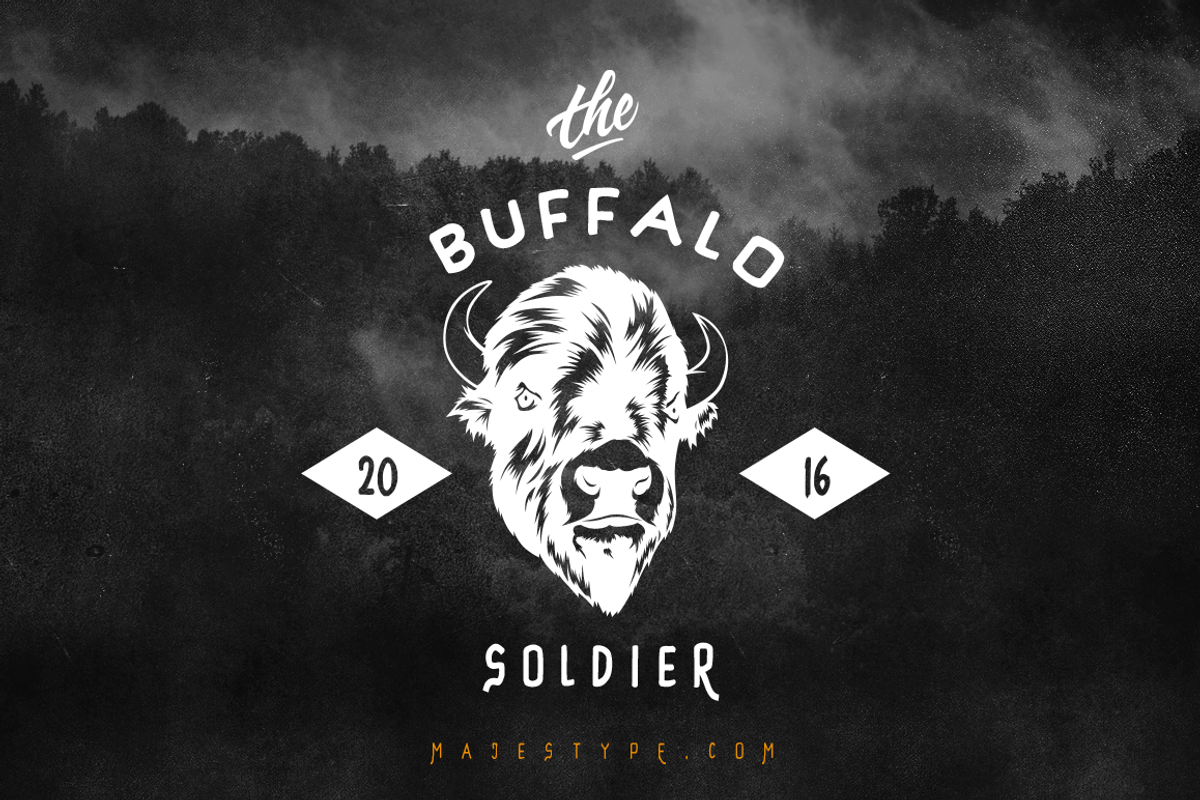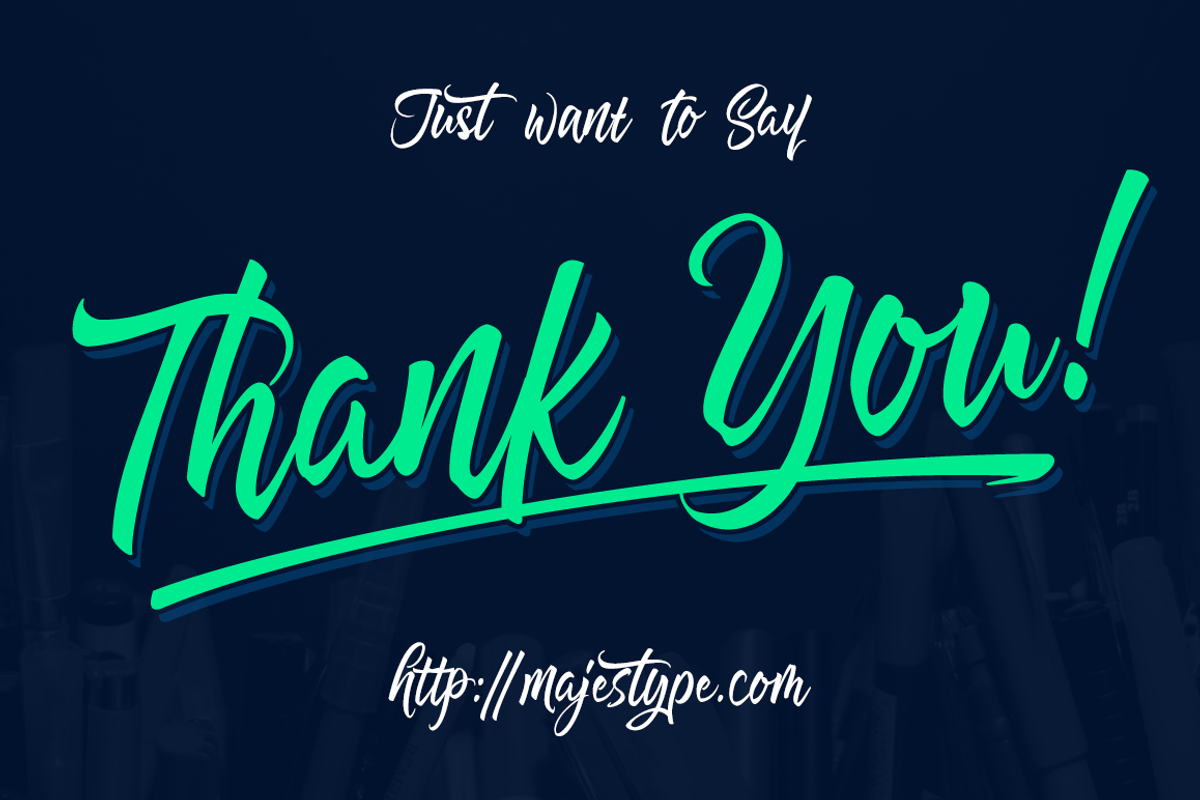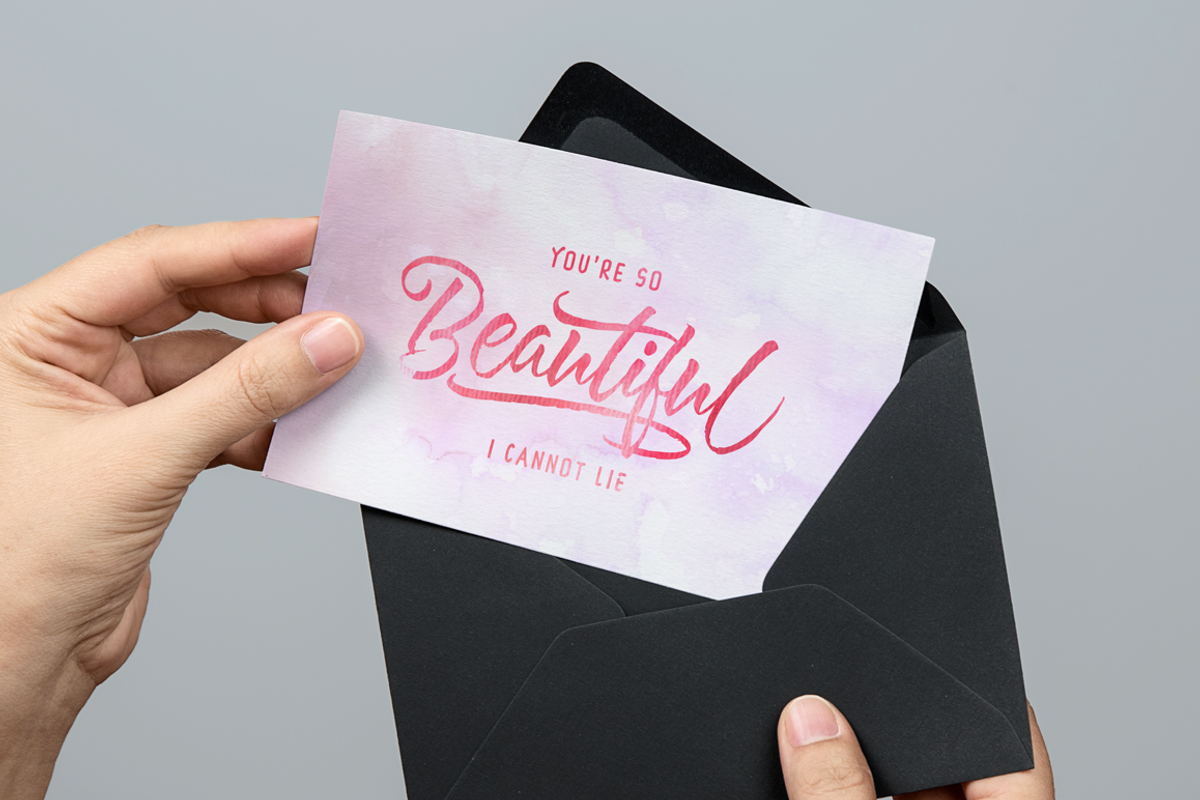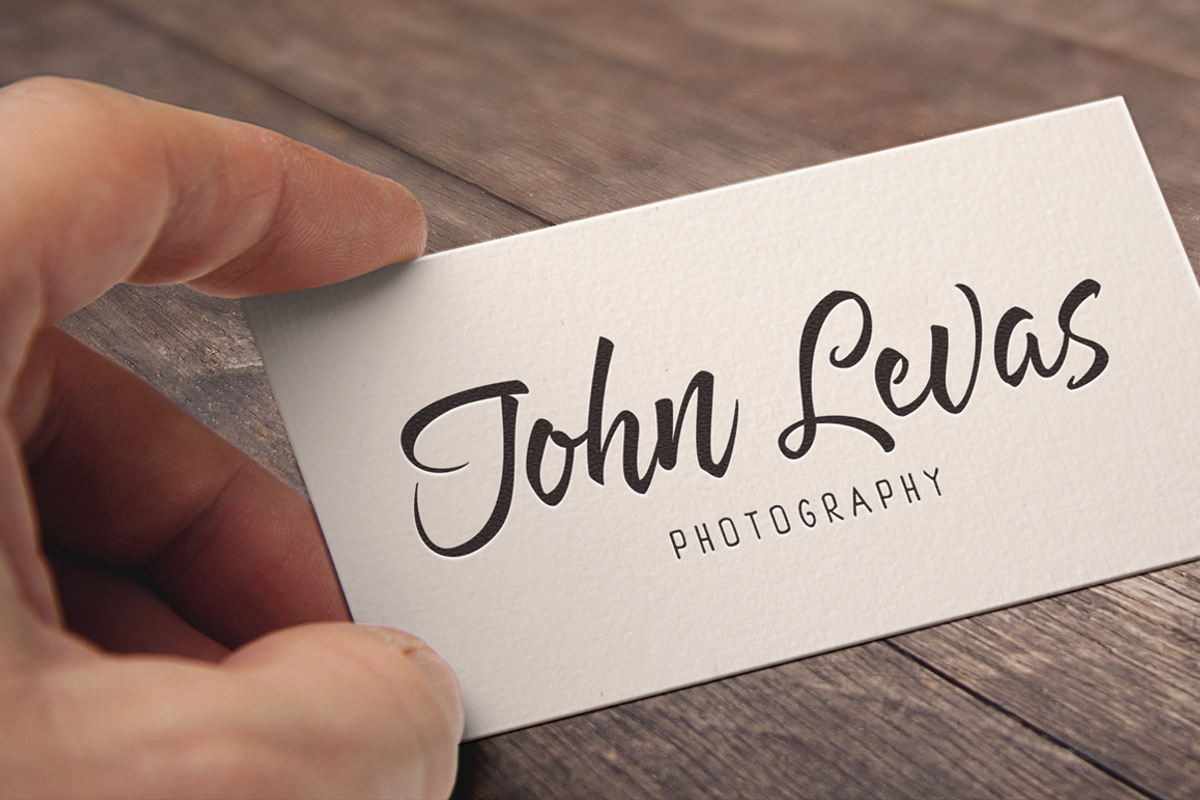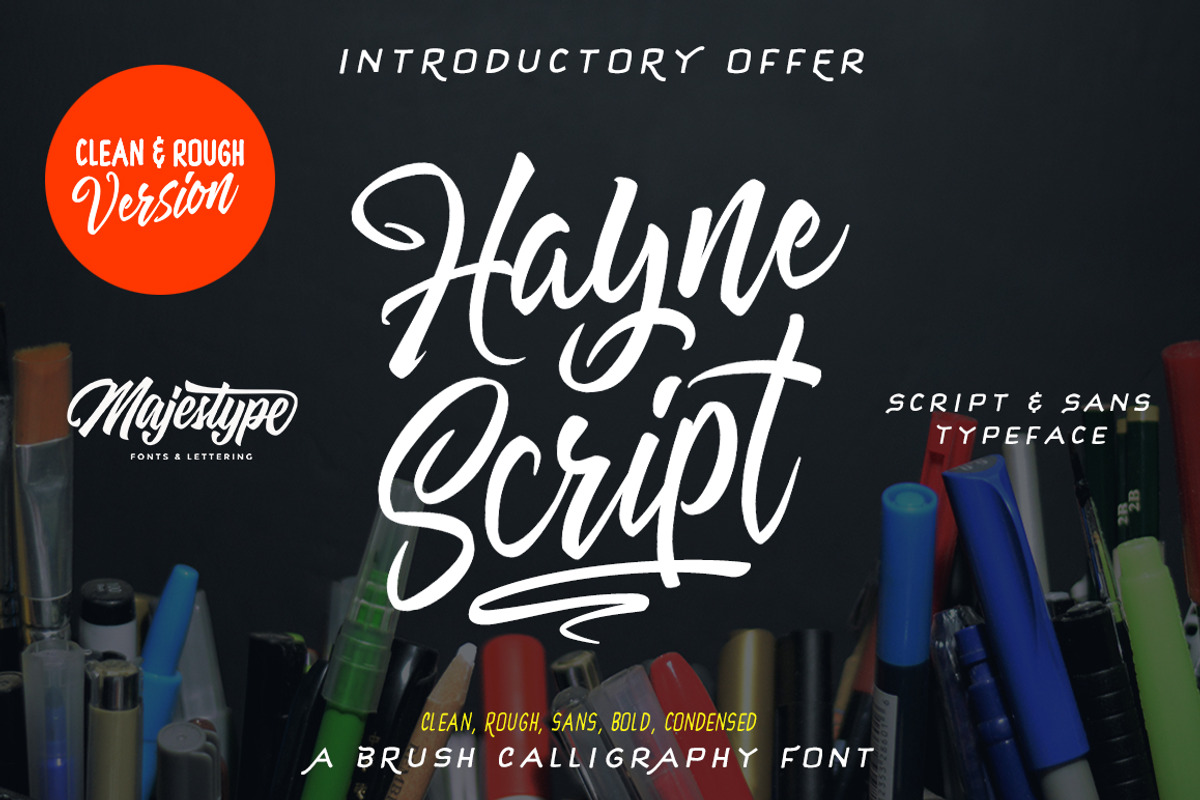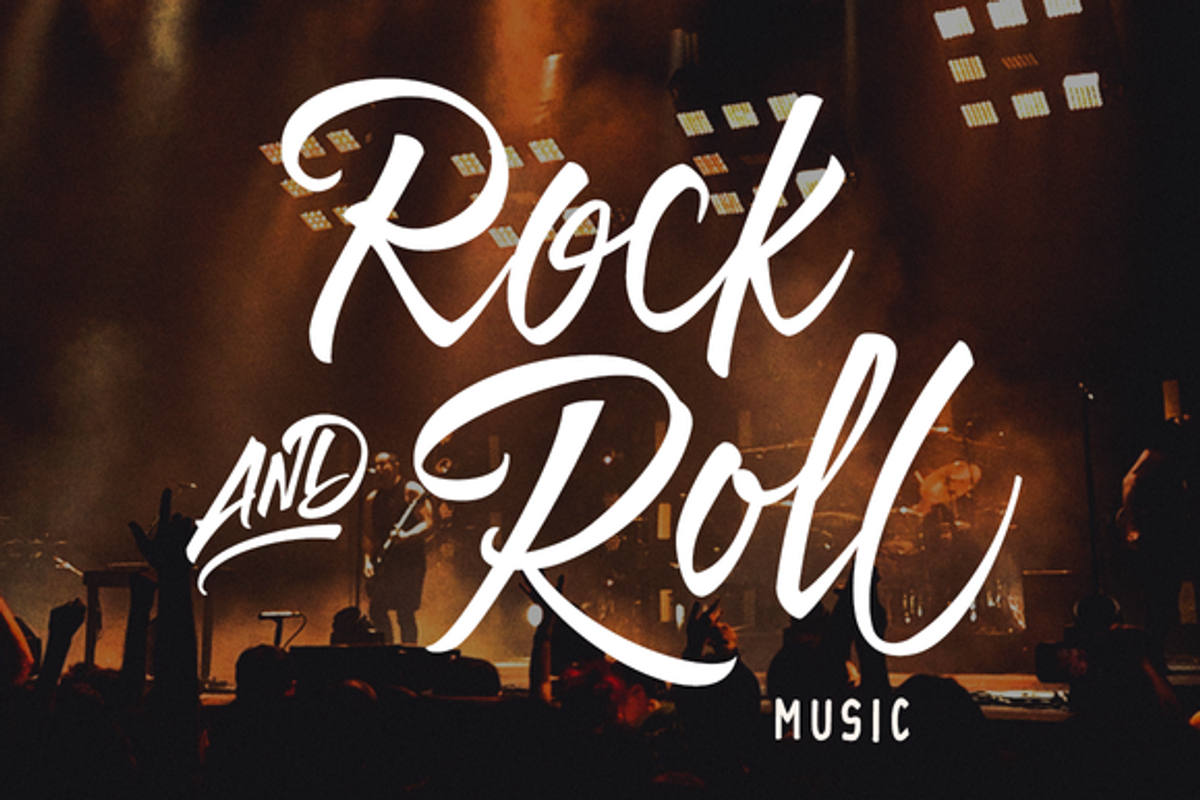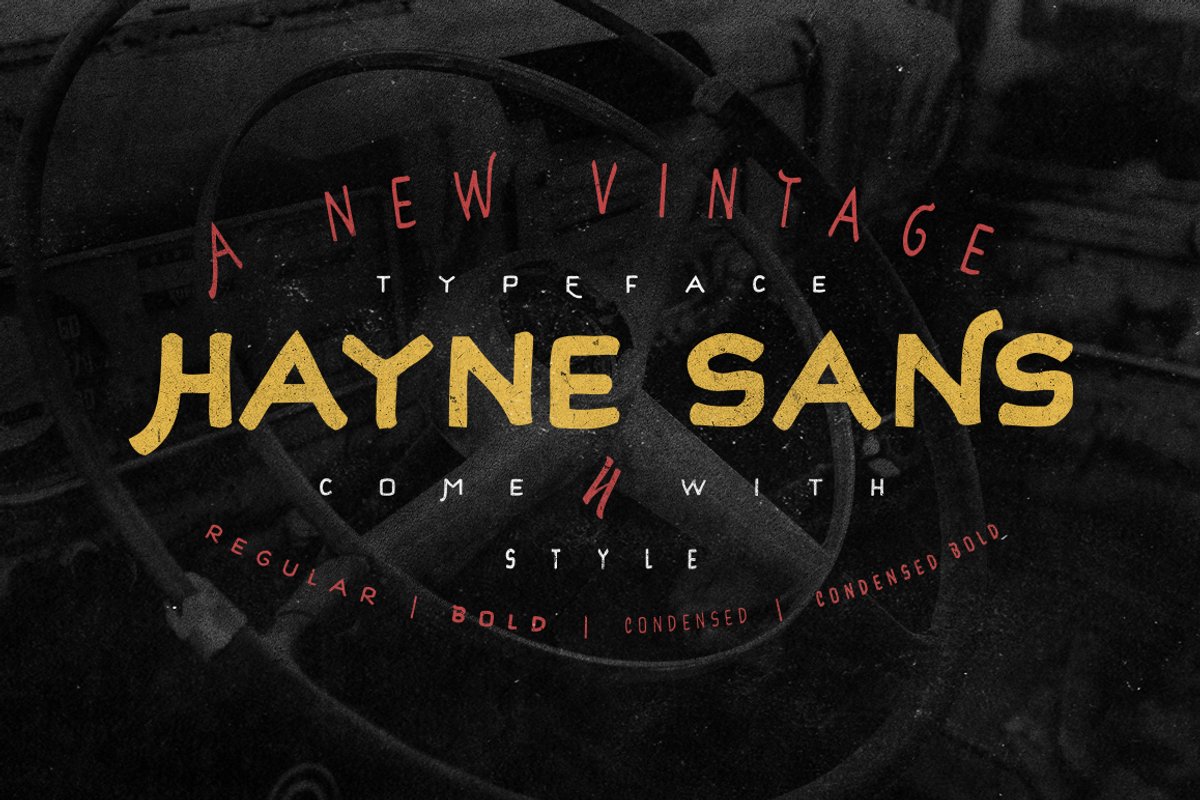
Hayne Clean & Rough - Brush Font
Hayne Clean & Rough - Brush Font by dexsarharryfonts is a font selected for branding, posters, packaging, typography.
- It comes with a lot Glyph, 2 style for Script, international languages for Script and Standard Glyph for Sans Version, it can be a new great
Why Hayne Clean & Rough - Brush Font is worth a look
Hayne Clean & Rough - Brush Font by dexsarharryfonts fits naturally into Branding, posters, packaging, typography.